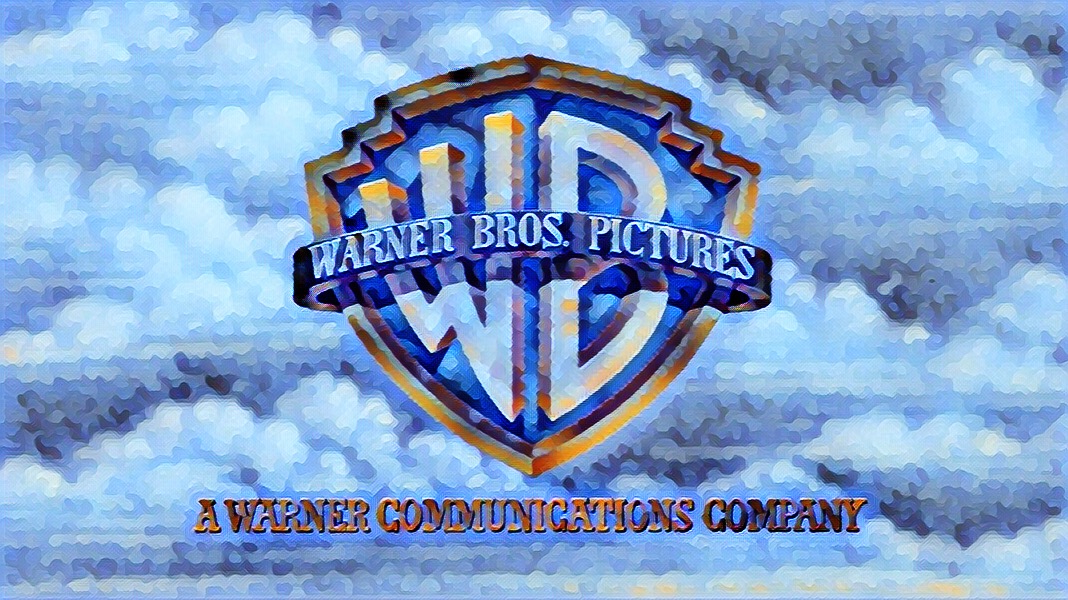
Warner Bros Font Meme. This was used as a closing logo on some films beginning in 1985. Looking for warner bros fonts?
The other one is called warner logo font nine. Used only at the end of trailers. Forum → font identification → back to the list.
Warner Bros's Old Logo (Left) Vs.
It was known for introducing many famous cartoon characters such as bugs bunny, daffy duck, marvin the martian etc. The fonts in use section features posts about fonts used in logos, films, tv shows, video games, books and more; This font has designed by jayvee d.
This Was Used As A Closing Logo On Some Films Beginning In 1985.
Indeed, the edge of the shield has now been rendered in a metallic silver, as has the 'wb' lettering. In a similar occurrence to how the 20th century fox warning appeared in amazon women on the moon, this warning makes a. Fonts per page 10 20 50 sort fonts by.
The “Batman” Part Of The Film Title Is Set In Mark Simonson’s Mostra Nuova.
The New Version Revealed In 2019 (Right) (Image Credit: